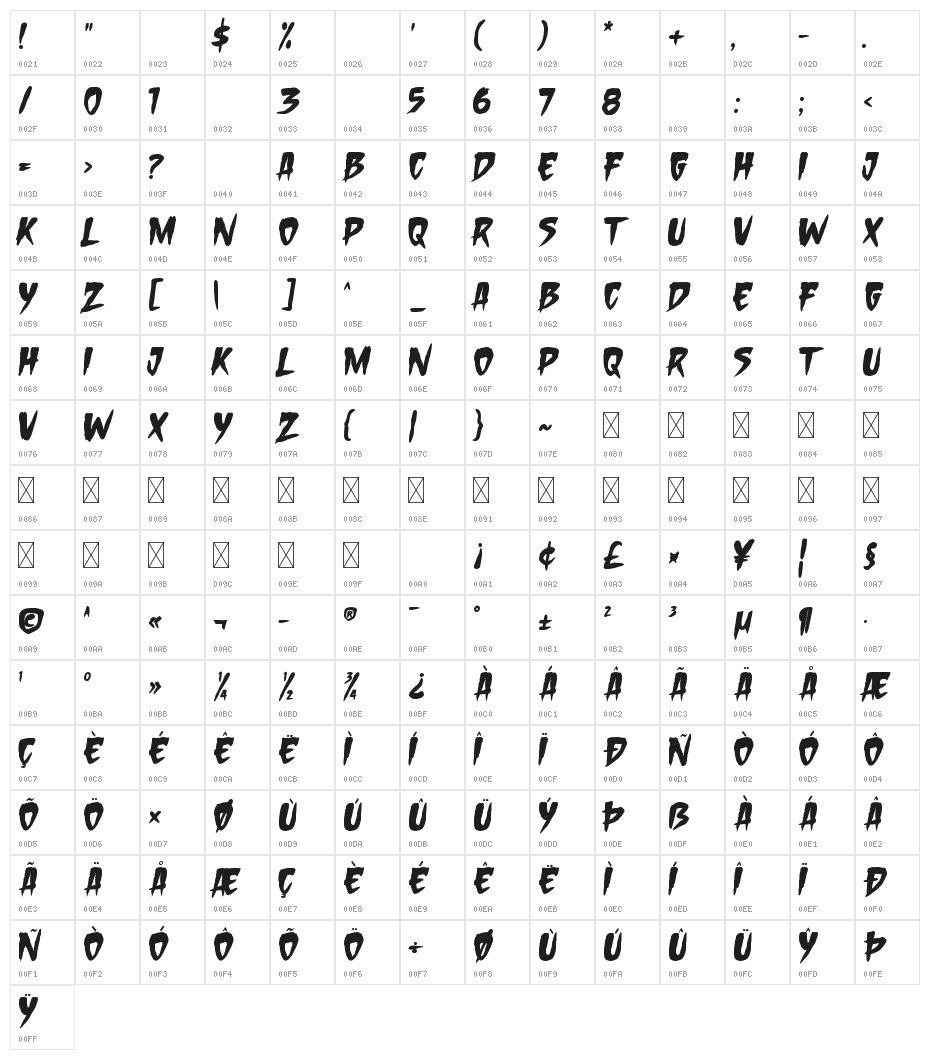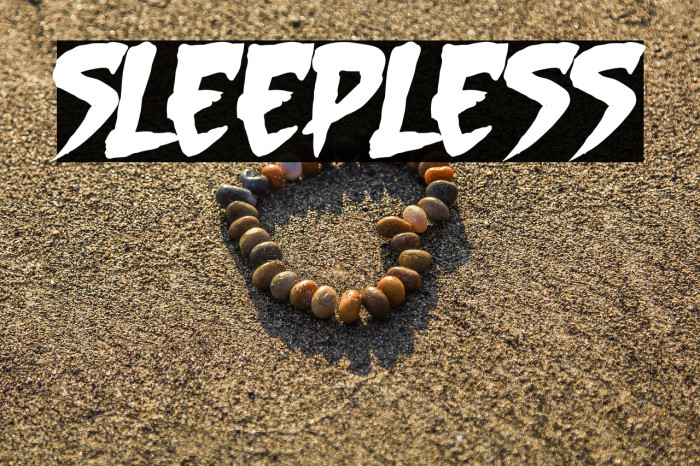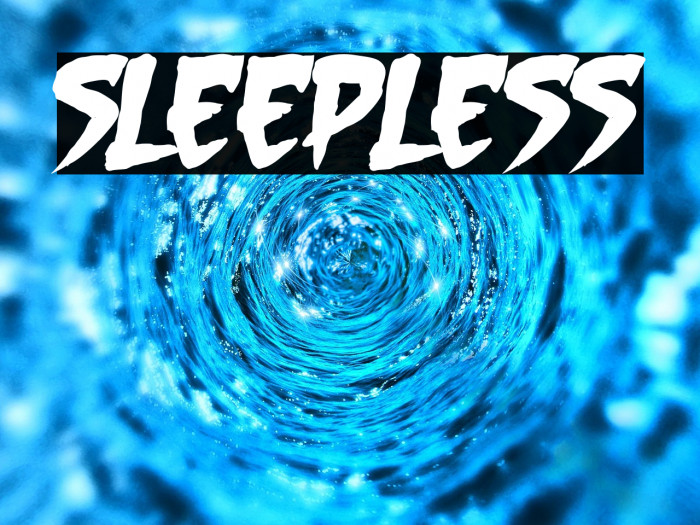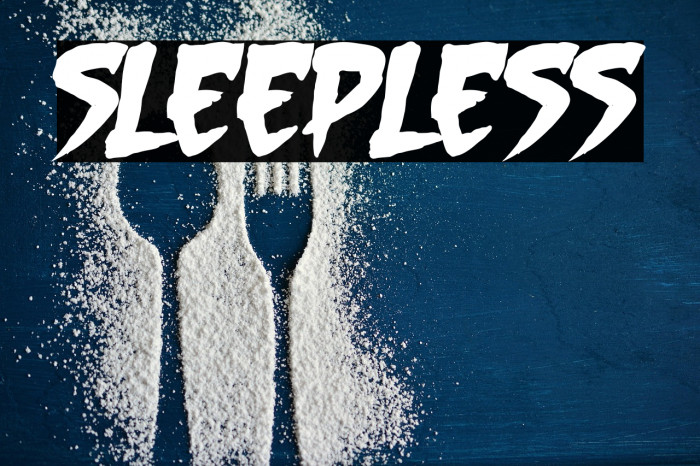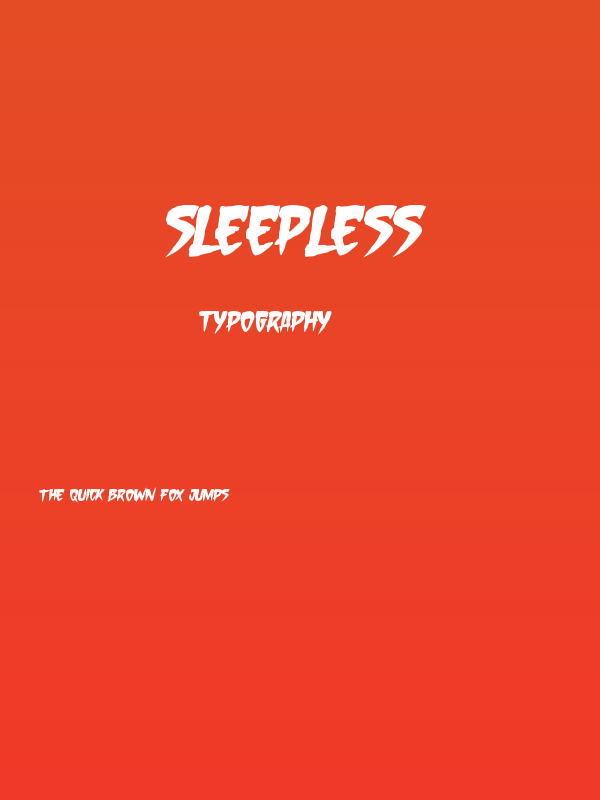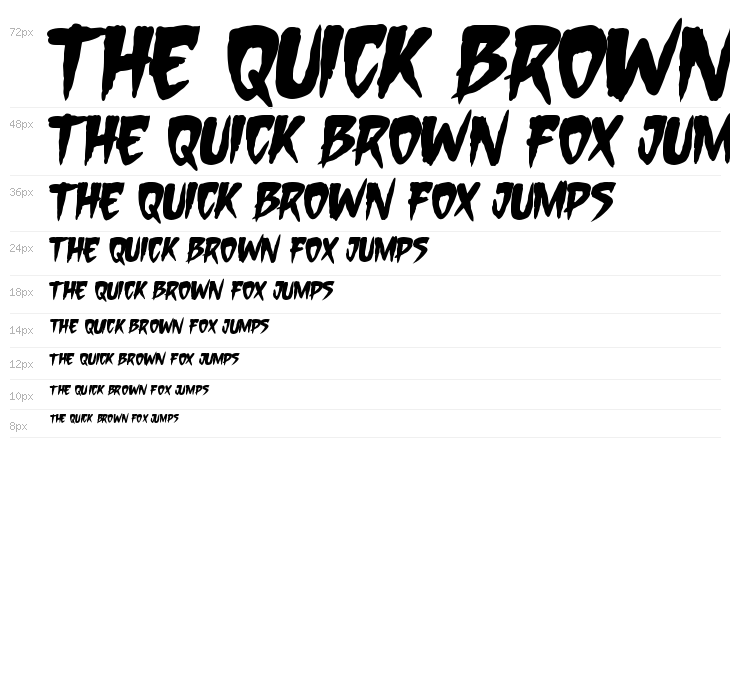
Sleepless Font
Sleepless Description
This font features a bold and dynamic brush style, characterized by its thick strokes and energetic appearance. The letters have a hand-painted look, with irregular edges and a sense of motion, making it ideal for creating a dramatic and impactful visual statement. The uppercase and lowercase letters maintain a consistent style, with a slightly condensed form that enhances its boldness. The numbers and special characters are equally expressive, adding to the font's overall cohesive and artistic feel.
| Proposed Projects | Ideal for posters, album covers, branding, and any project requiring a bold, artistic touch. |